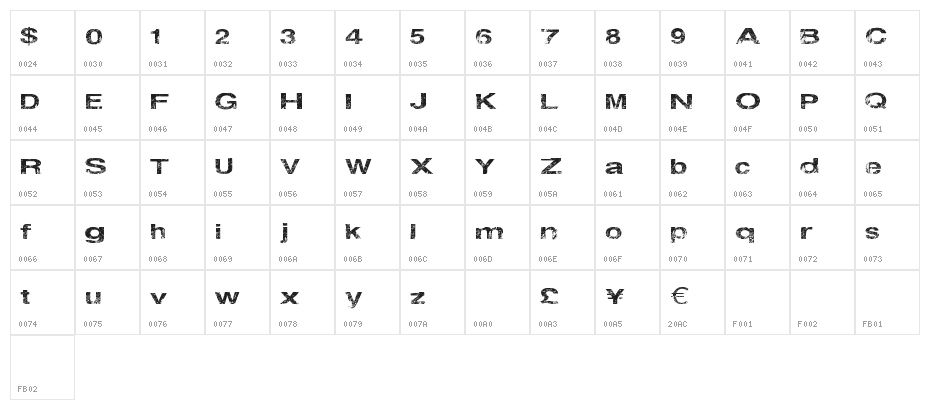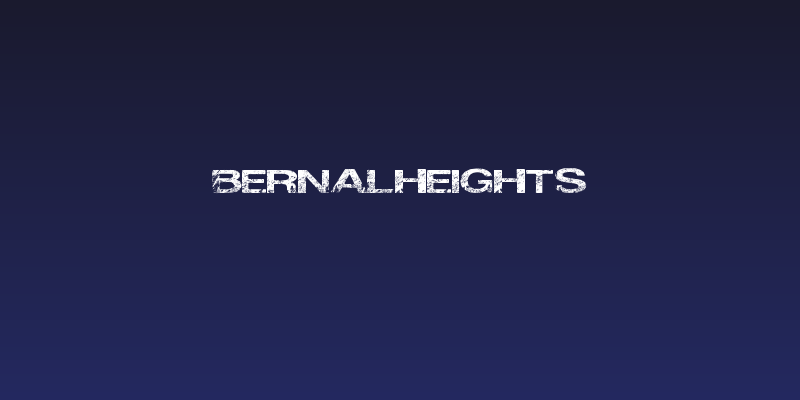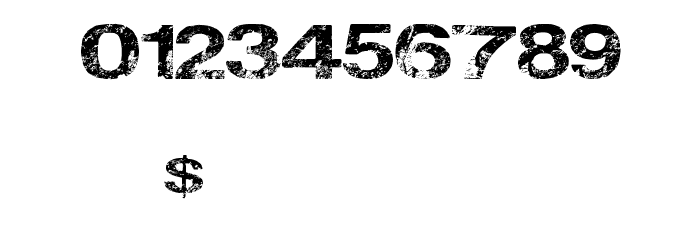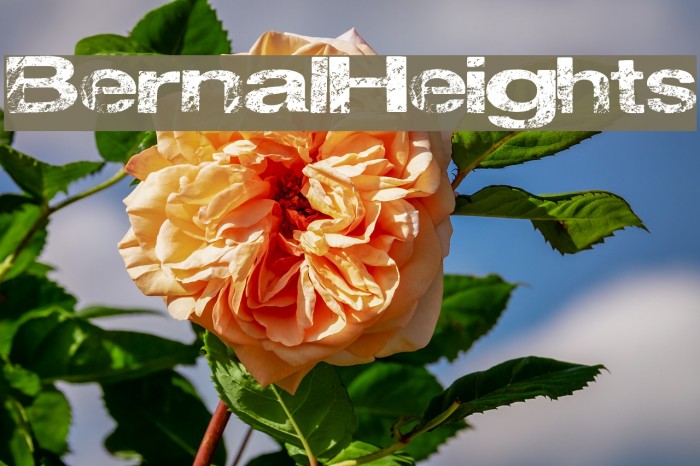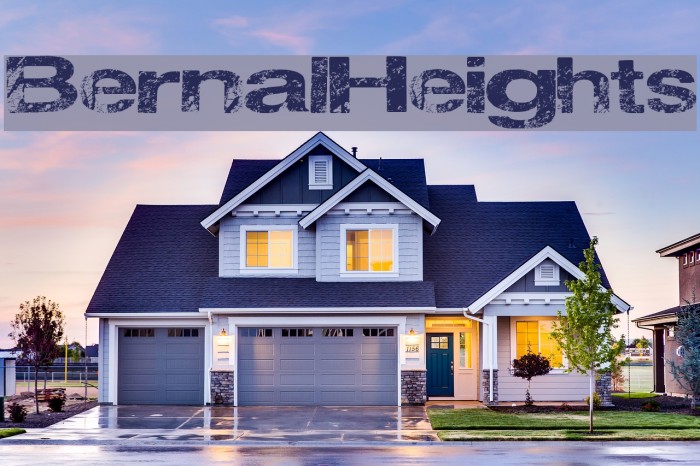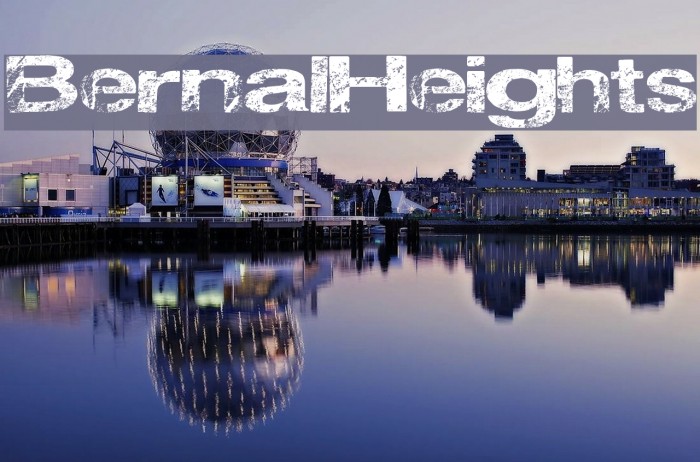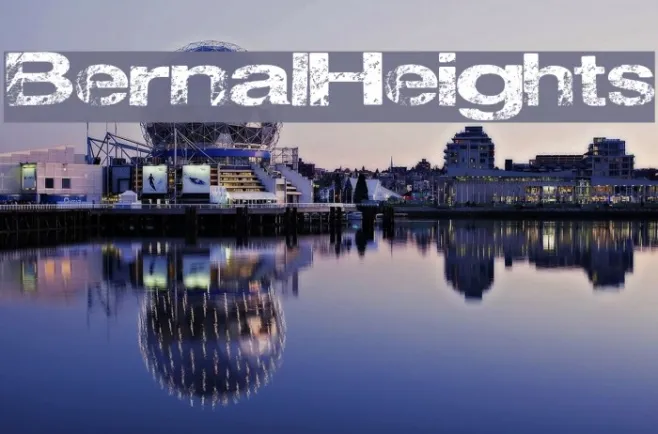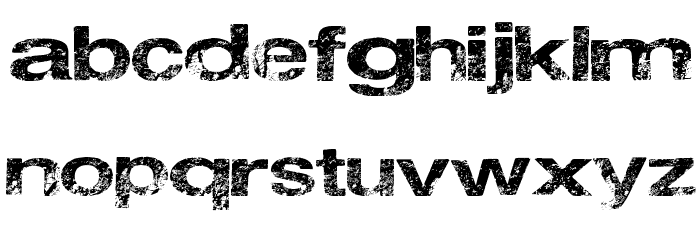
BernalHeights Font
BernalHeights Description
This font features a distressed, grunge style with a textured appearance that gives it a worn and rugged look. The characters are bold and impactful, with a rough, uneven texture that suggests a vintage or industrial aesthetic. The uppercase and lowercase letters maintain a consistent width, while the numbers and special characters share the same distressed quality. This font's unique style makes it stand out, offering a sense of character and depth that can add a dramatic touch to any design.
| Proposed Projects | Ideal for projects requiring a vintage or industrial feel, such as posters, album covers, or branding for edgy or alternative products. |